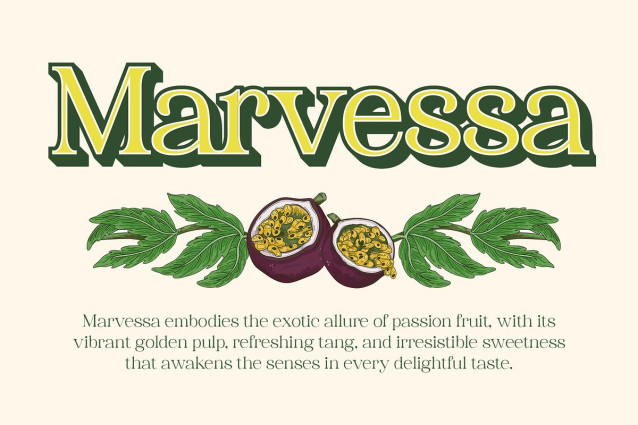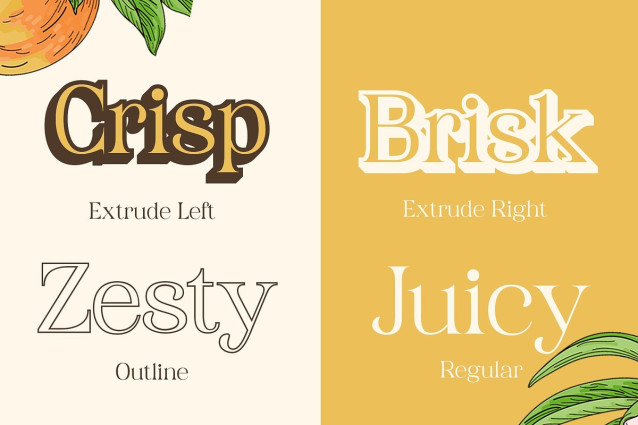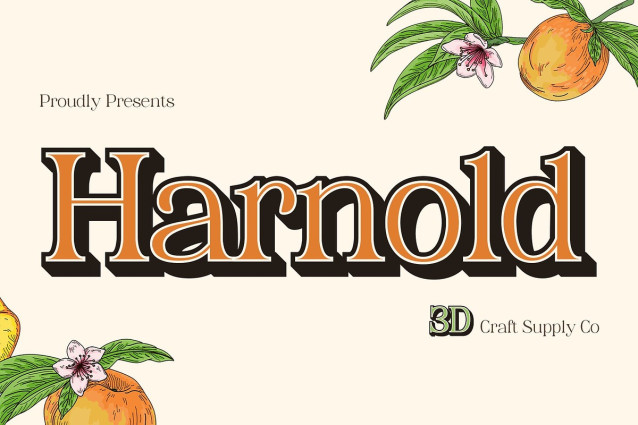
Harnold 3D Font
Harnold 3D Font is a modern serif font that embodies refined simplicity and timeless sophistication. Featuring fine lines, balanced proportions, and a sleek structure, it creates an effortlessly elegant and upscale look. Designed to elevate contemporary design projects, this font delivers a polished and graceful presence.
Subtle 3D Effect for Unique Depth Enhancing its classic serif foundation, Harnold 3D introduces a subtle yet striking three-dimensional effect. This layered depth adds visual intrigue, making the text appear more engaging and dynamic without overwhelming its refined aesthetic. The result is a modern take on traditional elegance, ideal for sophisticated branding and creative projects.
Ideal for Luxury Branding and Editorial Layouts Perfect for premium packaging, high-end logos, magazine covers, and elegant advertising, Harnold 3D offers a versatile and stylish typeface that adapts effortlessly to both bold headlines and delicate typography. Whether used for fashion, beauty, or upscale product designs, its sleek letterforms and dimensional details enhance the overall visual impact.
Classic Sophistication Meets Modern Innovation Harnold 3D seamlessly blends traditional serif charm with contemporary aesthetics, making it a go-to choice for designers seeking refinement and innovation. Its harmonious balance of structure and depth ensures that every design project radiates class, confidence, and creativity.